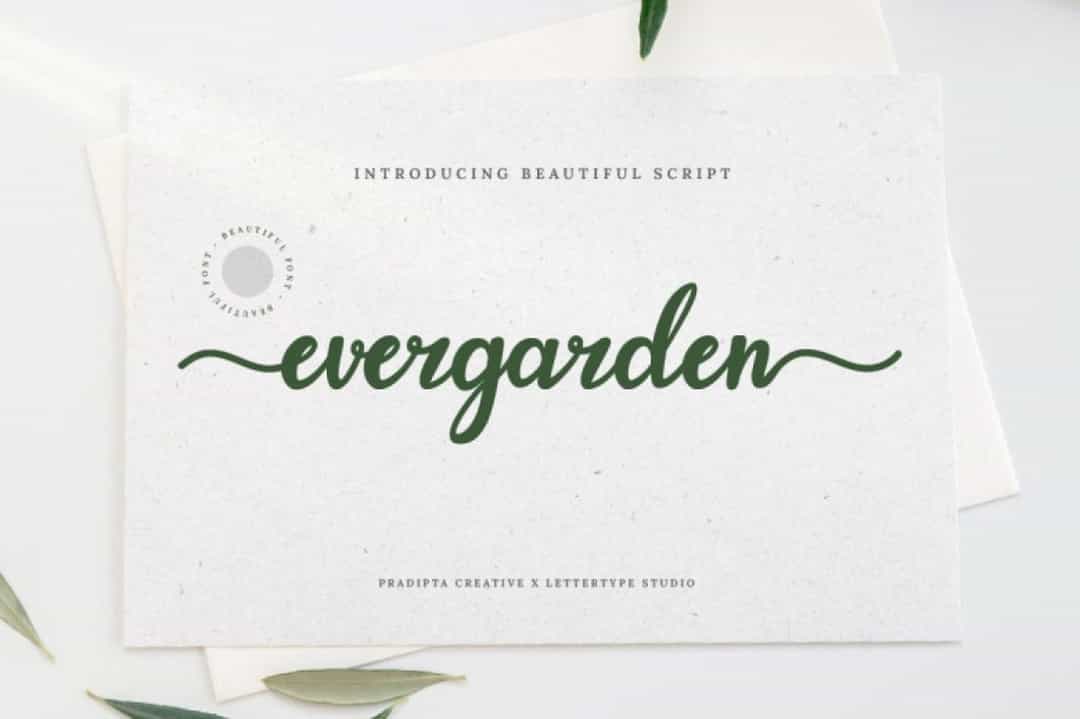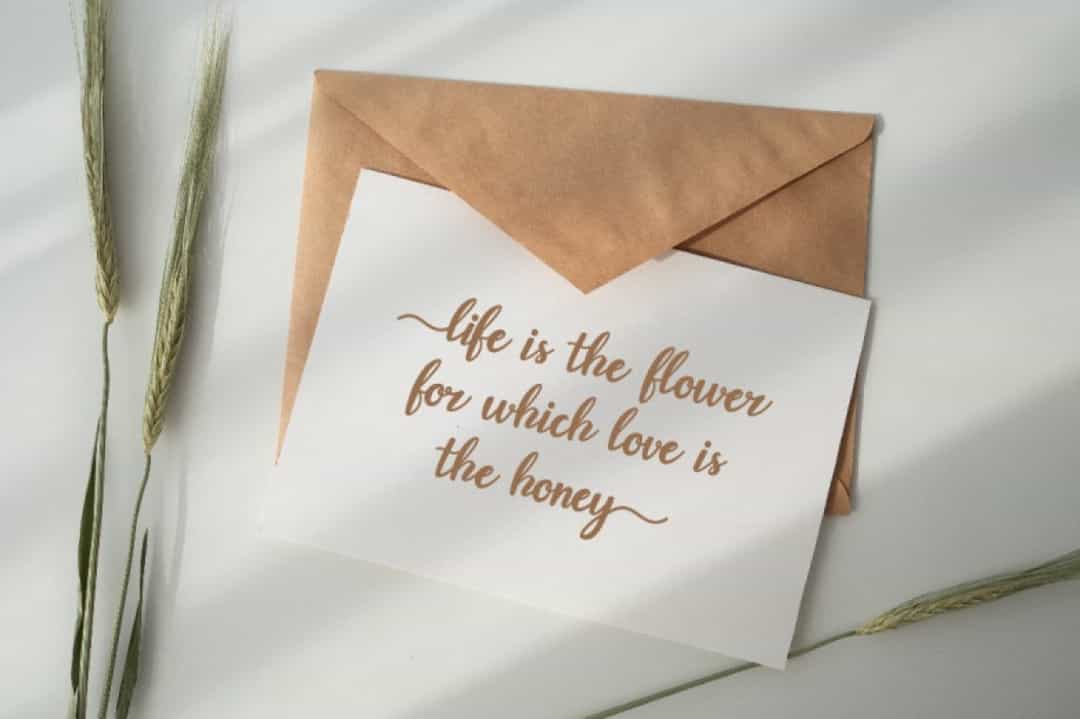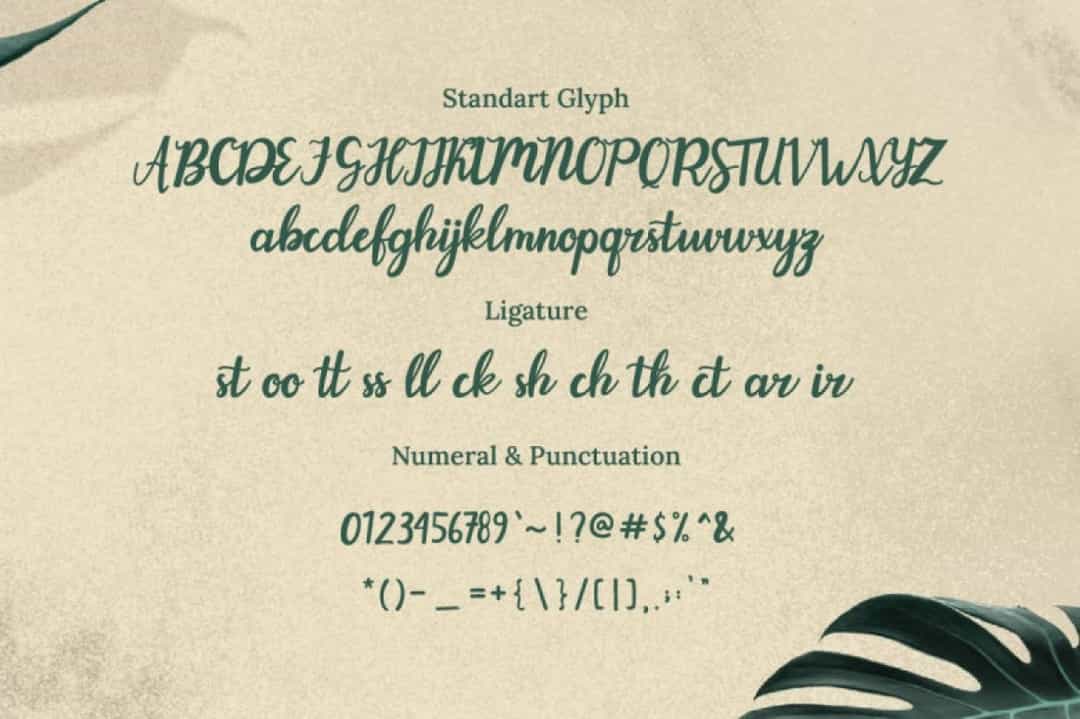
Discover Evergarden Font, part of the Calligraphy Handwritten collection—a versatile and unique font perfect for adding a personal touch to your projects. Download it for free and enjoy crafting designs with style, from invitations to social media posts. This font is available exclusively for personal use, giving you the freedom to create without limits. Unlock your creativity with Evergarden Font today!
Evergarden! A stunning script font ideal for calligraphy projects featuring feminine themes! Experiment with its ligatures and stylistic options to craft your own alphabet. Combine Evergarden into any original idea to see them become even more vibrant!